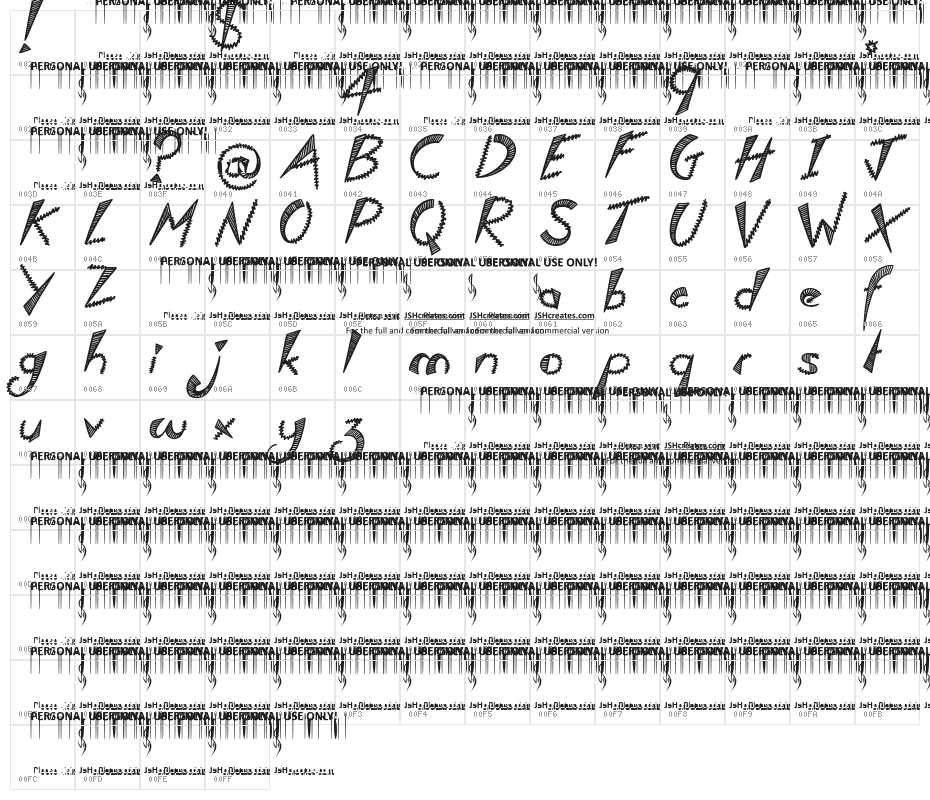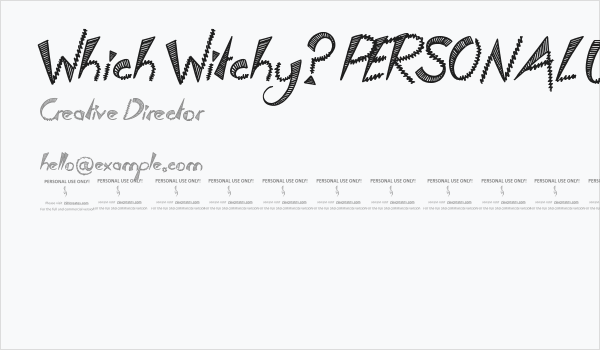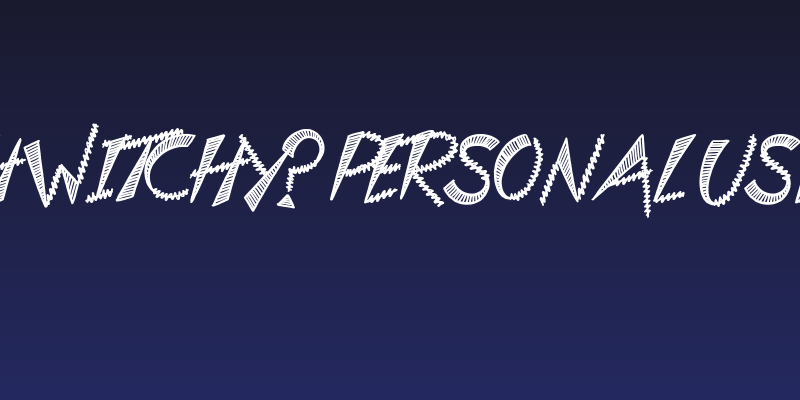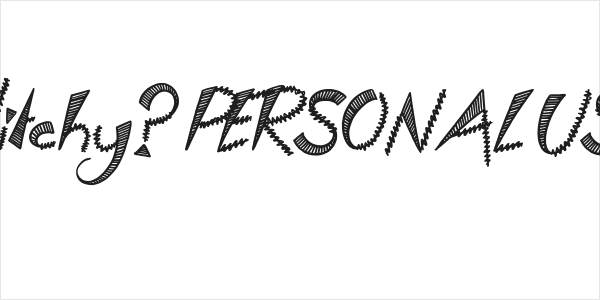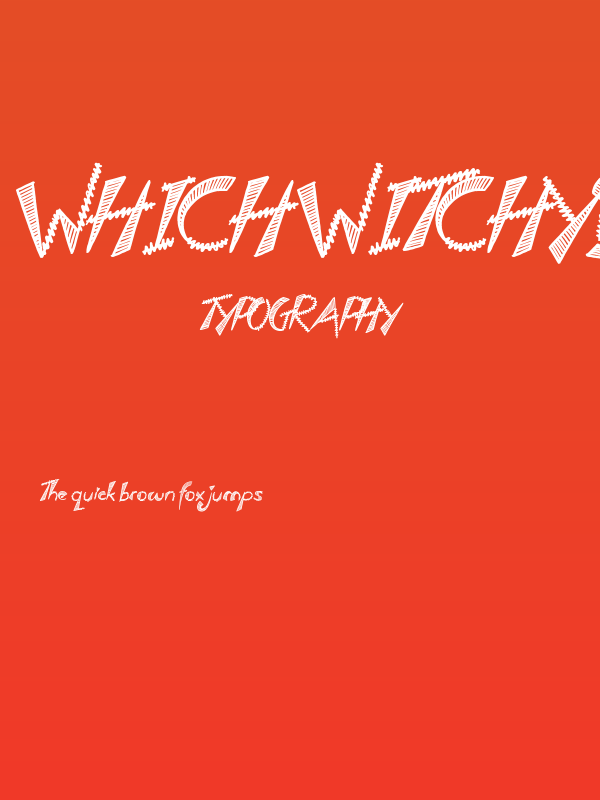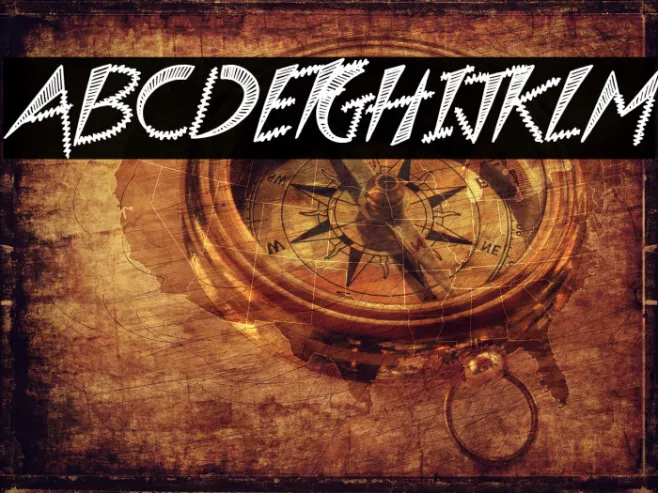
Which Witchy? PERSONAL USE ONLY Font
Which Witchy? PERSONAL USE ONLY Description
This font features a unique, zigzag pattern that gives it a dynamic and energetic appearance. Each letter is crafted with a playful, jagged edge, resembling a lightning bolt or a sawtooth design. The uppercase and lowercase letters maintain a consistent style, with the uppercase being slightly more pronounced. The numbers and special characters follow the same aesthetic, ensuring uniformity across all glyphs. This font's distinctive style makes it ideal for creative and unconventional projects, adding a touch of whimsy and boldness.
| Proposed Projects | Ideal for Halloween-themed designs, party invitations, posters, and any project requiring a bold, whimsical touch. |